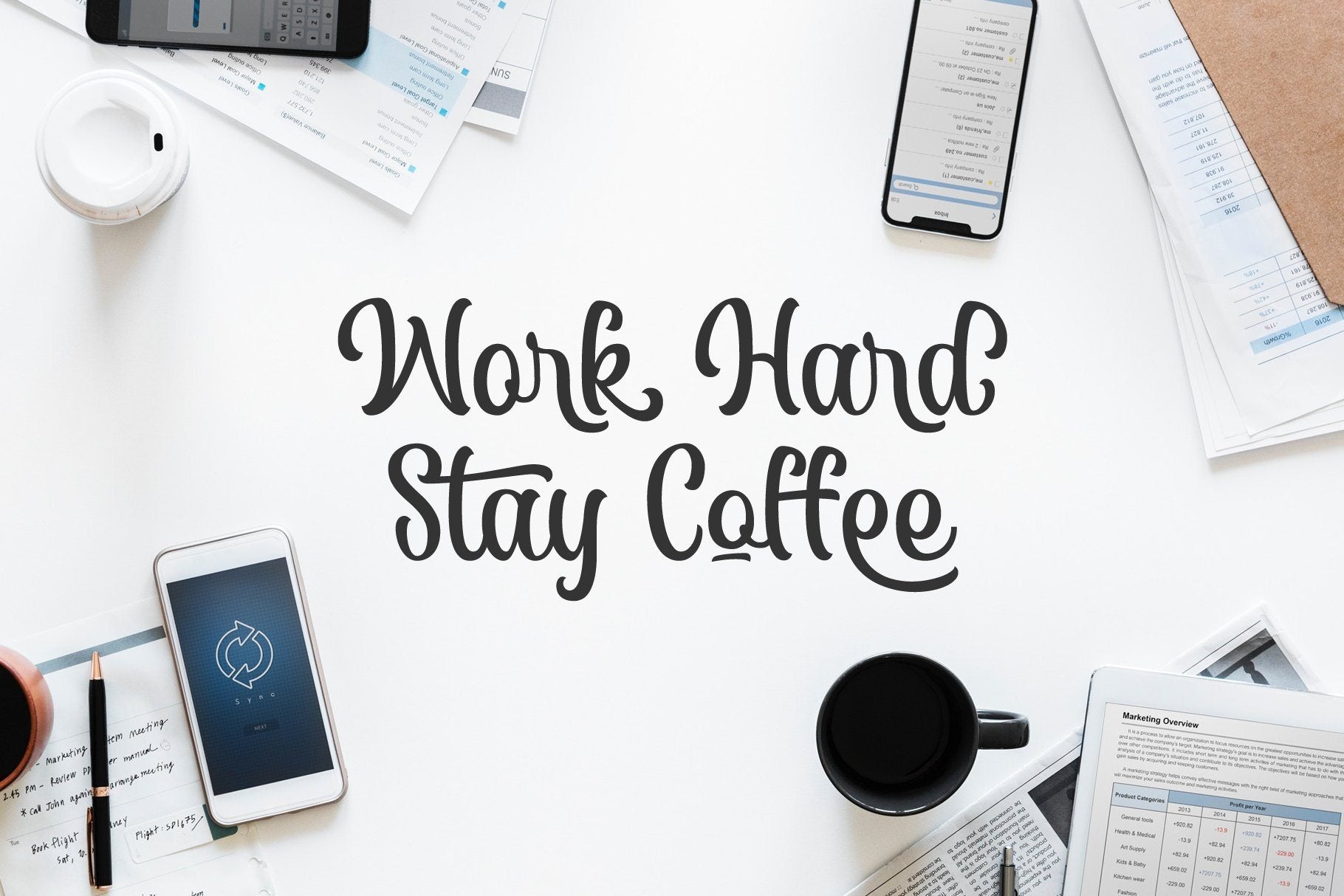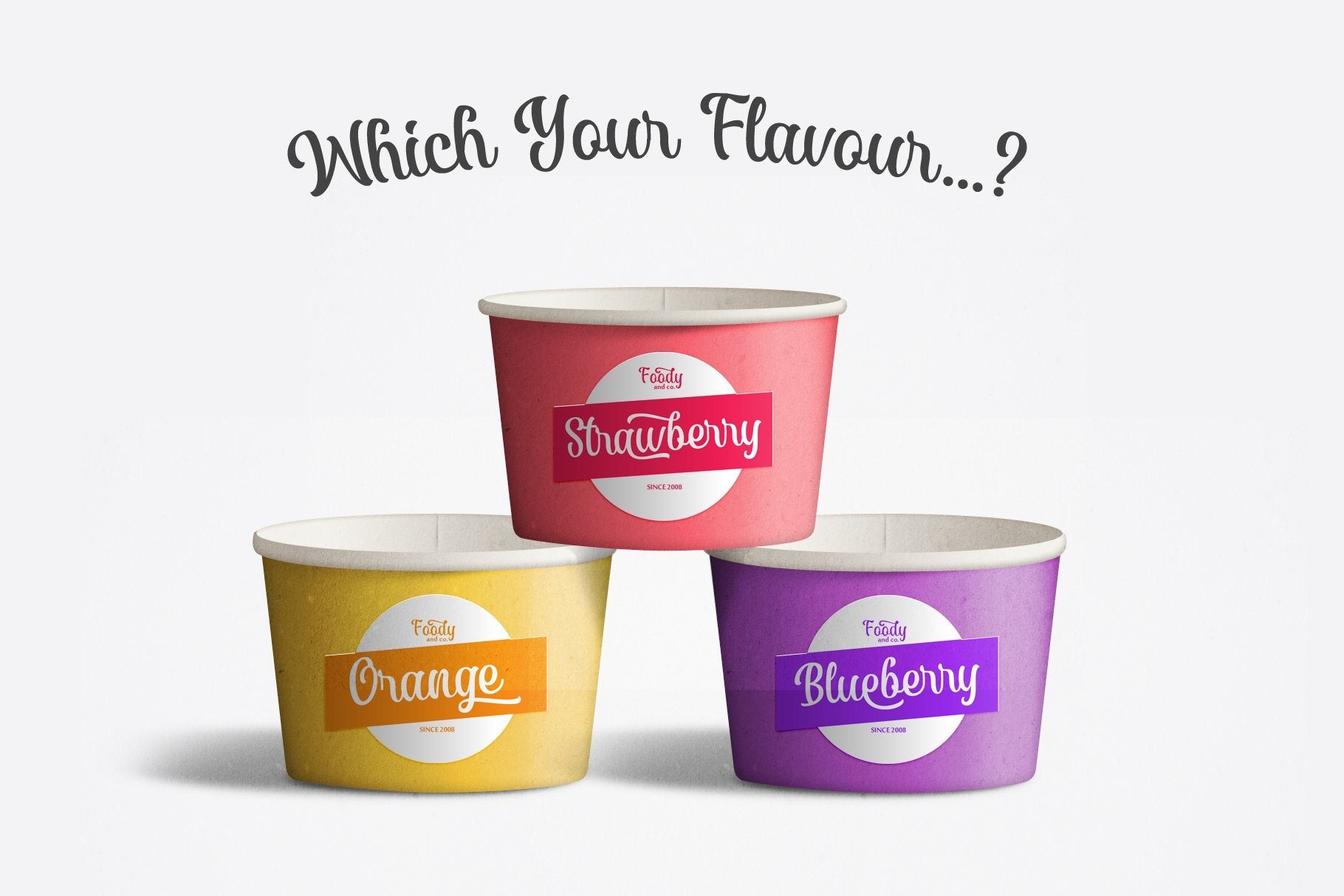
About Wishteria
WISHTERIA! a playful formal typeface, very suitable to make your design still neat and stylish. Carefully designed for body text or body copy on your office project. The letters made with solid strokes to keep it minimalist. Also, you can access the features to make an elegant playfully lettering with over 390 glyphs inside. PUA Encoded. You need some application to access the OpenType features such as Adobe Illustrator CS, Adobe Indesign, CorelDraw X6 and etc. You can simply access ‘character map’ or ‘font book’ on Mac. Available in TTF and OTF format. Wishteria features: Uppercase Lowercase Numerals Symbols Multilingual characters: Afrikaans, Albanian, Croatian, Czech, Danish, Dutch, Estonian, Finnish, French, German, Hungarian, Italian, Maltese, Norwegian, Portuguese, Slovak, Slovenian, Spanisch, Swedish, Zulu Stylistic alternates Stylistic set 01 – Stylistic set 02 Ligatures Contextual alternates Thank you and enjoy it!